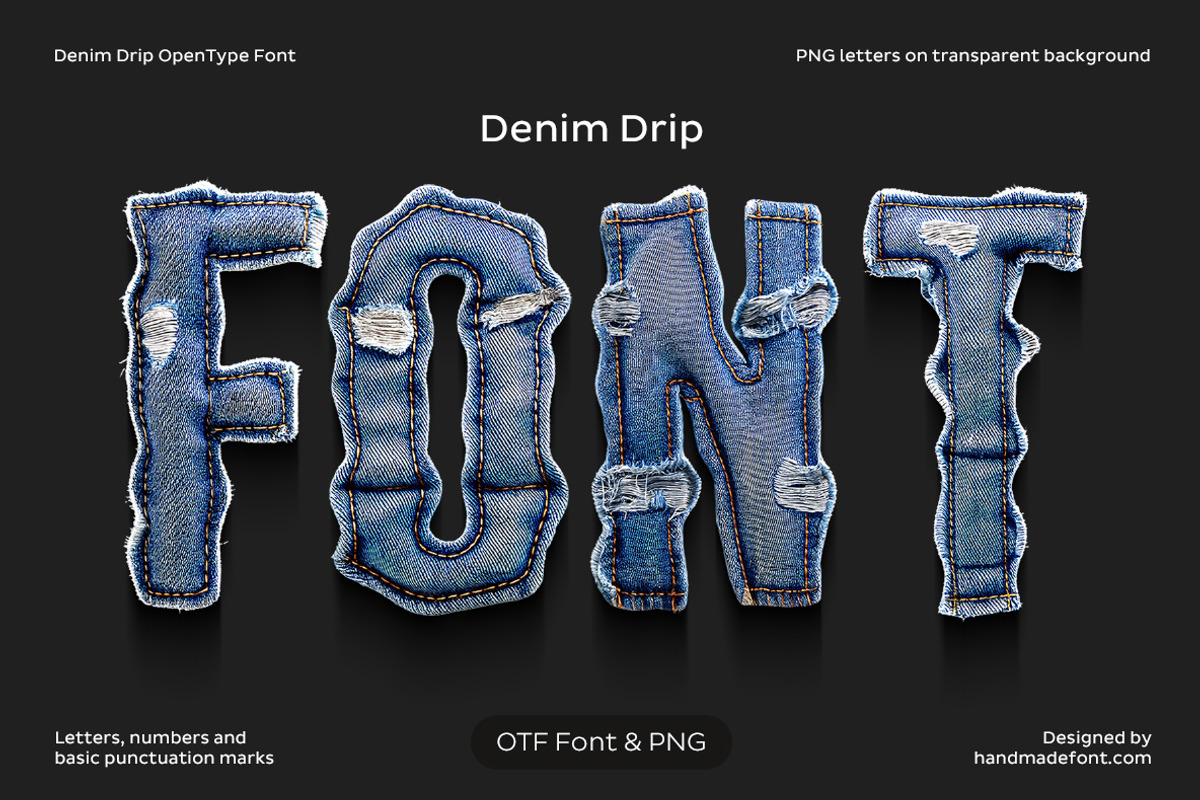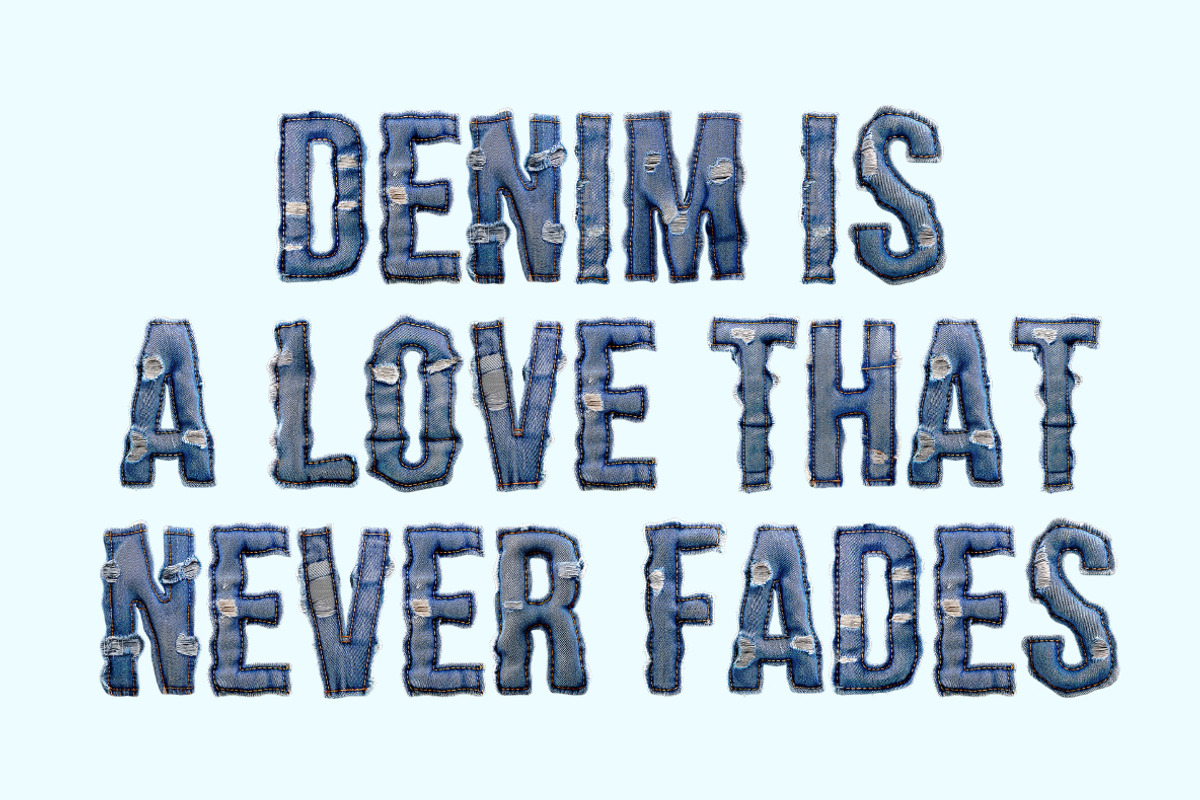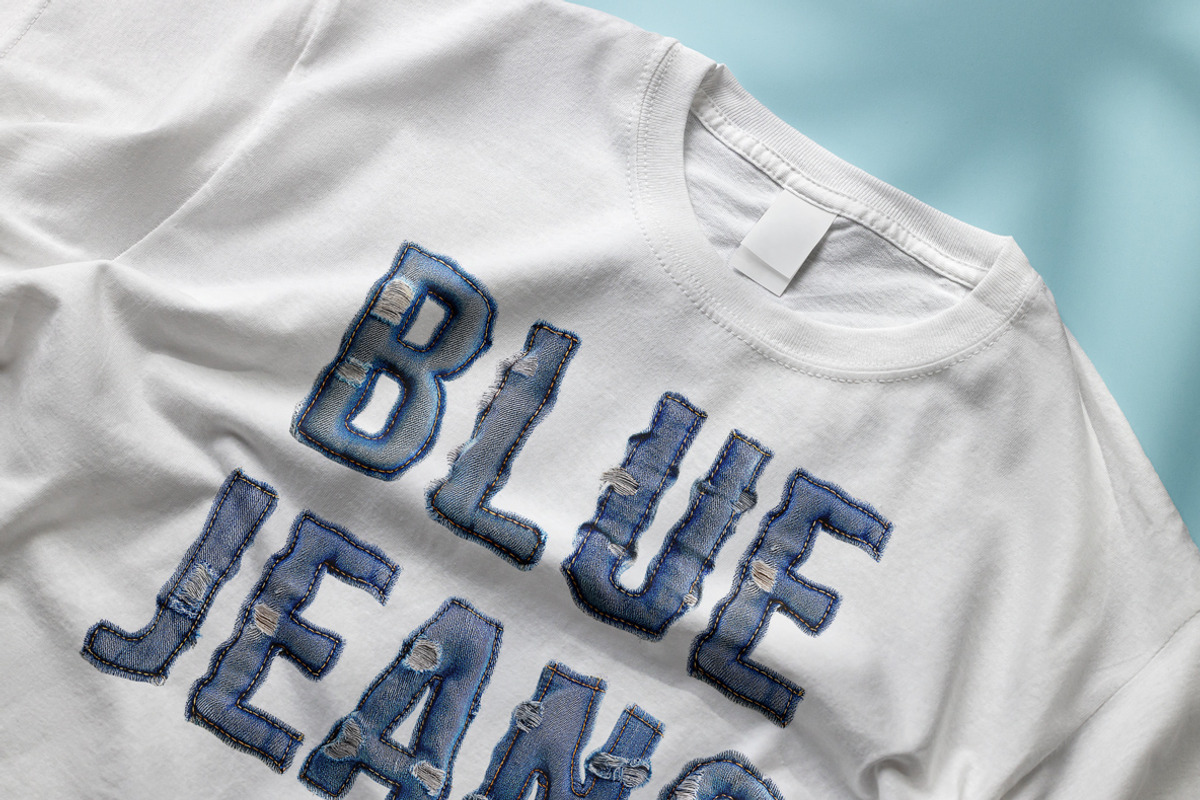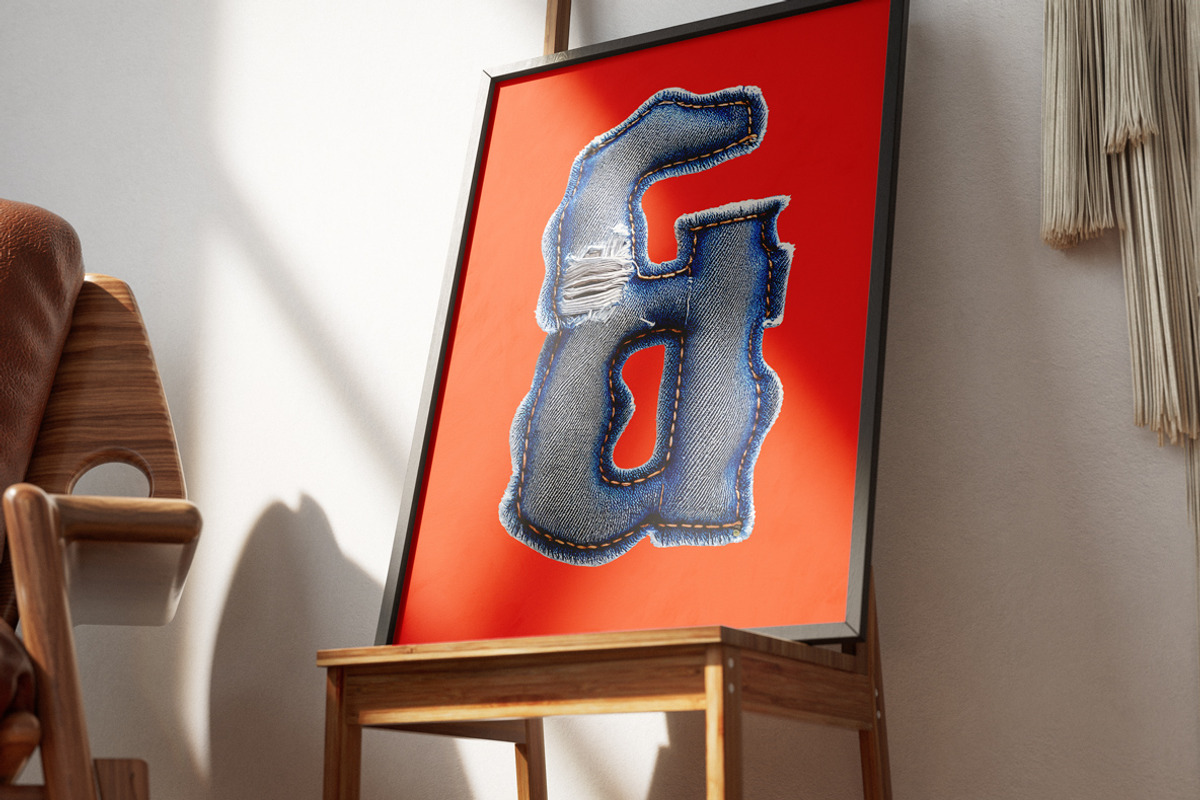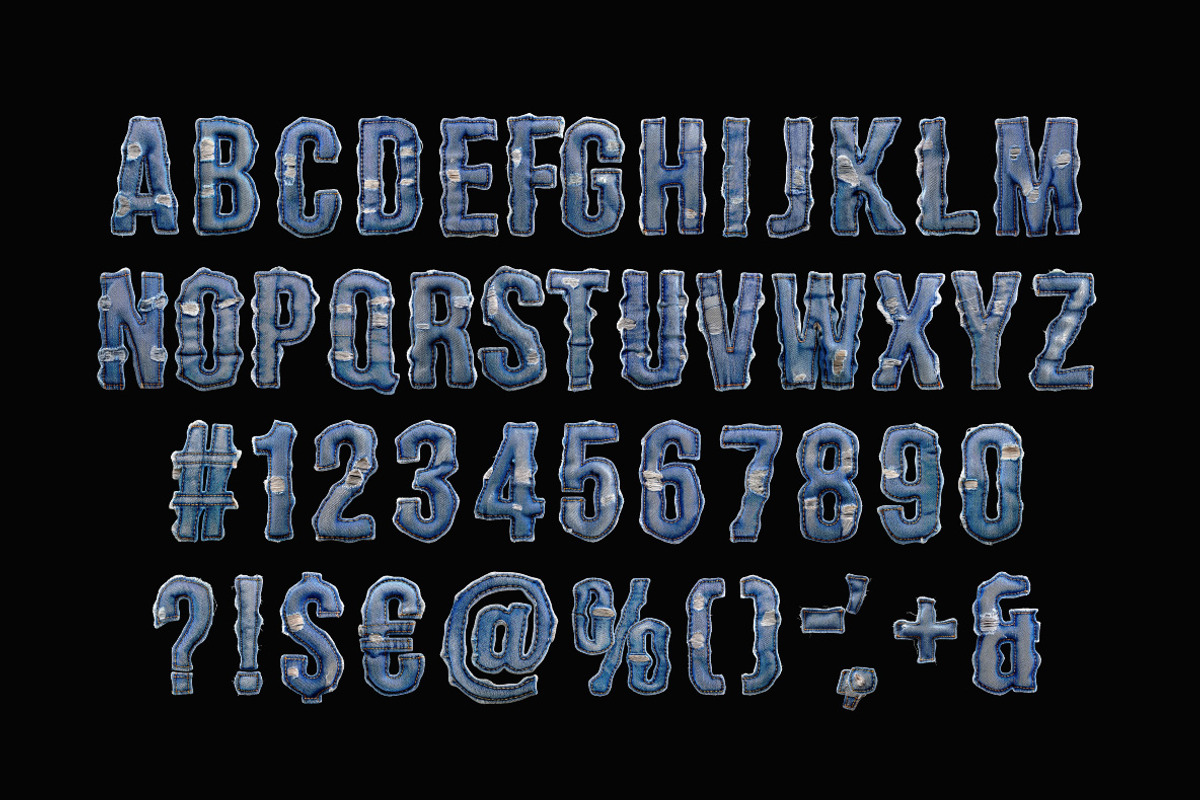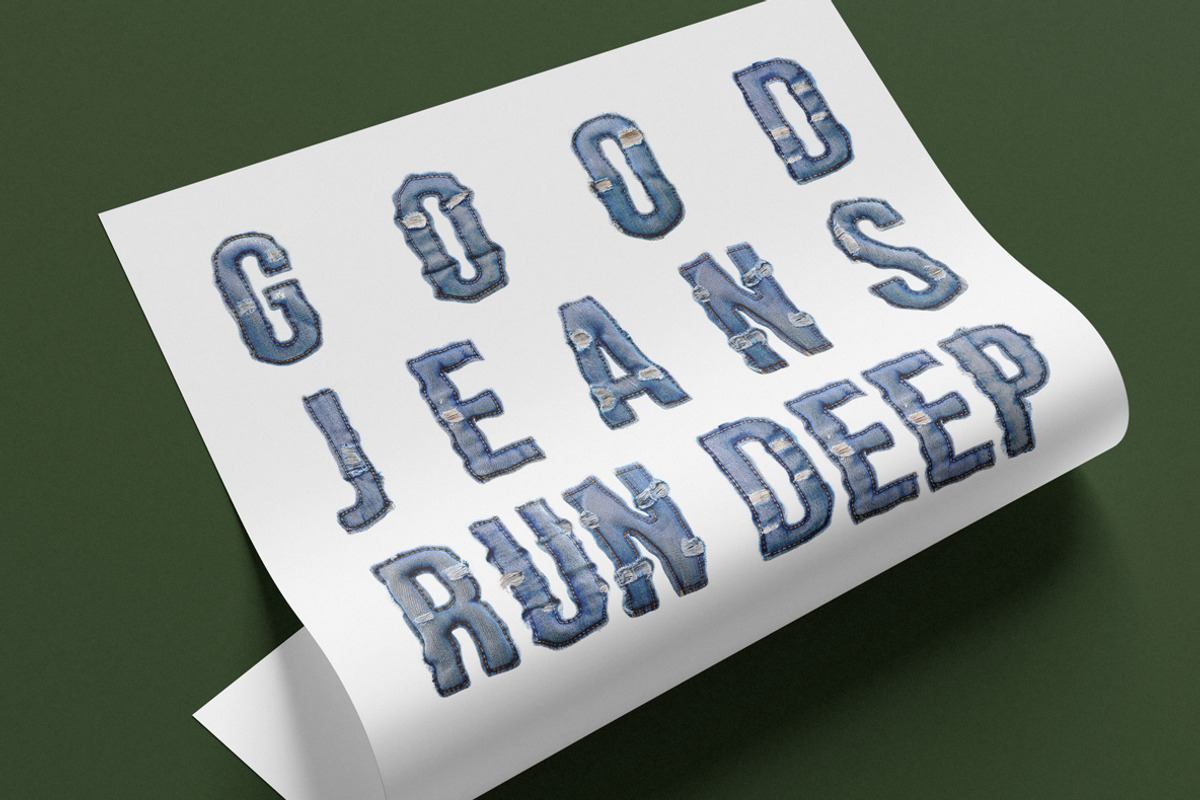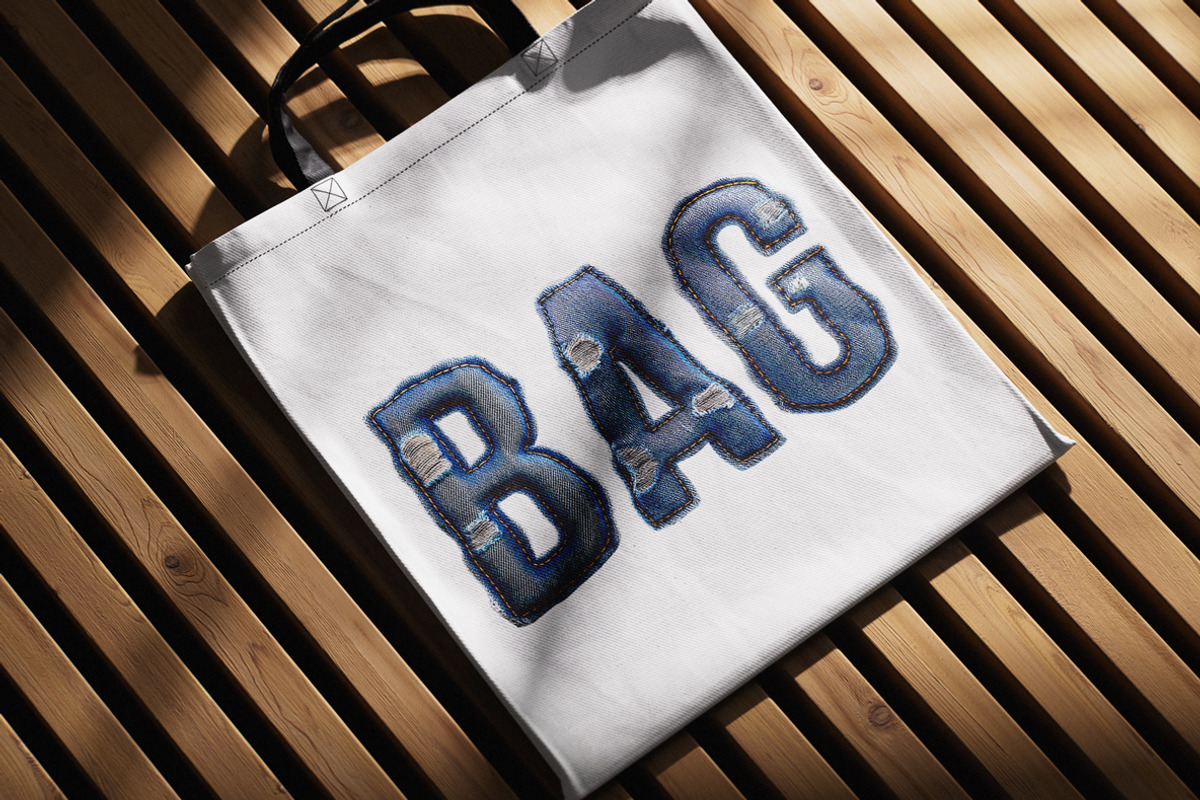
Denim Drip Font
Meet Denim Drip Font – the boldest thing to happen to typography since someone said, “Let’s wear jeans to work.” This font is stitched, ripped, and ready to rock. Each letter looks like it was cut straight from a rebellious pair of vintage Levi’s that’s lived a thousand wild nights. Frayed edges? Check. Rugged charm? Double check. Whether you’re designing for a grunge band, streetwear label, or just want your text to look cooler than a backstage pass, Denim Drip delivers. It’s gritty, it’s textured, it’s unapologetically distressed. Warning: may cause an uncontrollable urge to blast 90s alt-rock and start a garage band.
A high definition OpenType Font. Contains uppercase characters, numerals and basic punctuation. (Draw height roughly 800 pixels). All letters and glyphs that comprises this font you can see on the preview.
- Letters : A B C D E F G H I J K L M N O P Q R S T U V W X Y Z
- Numbers : 0 1 2 3 4 5 6 7 8 9
- Others : ! ? - . ' $ € % & # @